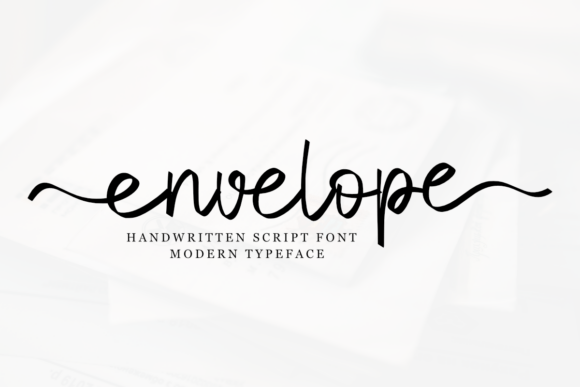
Introducing Envelope Font: The Epitome of Elegance and Sophistication
The world of typography is vast and diverse, with numerous fonts designed to cater to various tastes and preferences. Among these, the Envelope font stands out for its unique blend of elegance, sophistication, and personal touch. This beautifully flowing and elegant handwritten script font is perfect for adding a touch of modern sophistication to a wide range of creative projects.
The Characteristics of Envelope Font
Envelope is a modern typeface that boasts graceful, cursive letterforms featuring smooth connections and stylish swashes. These characteristics create a distinctly natural and refined aesthetic, making it an ideal choice for projects that require a personal and elegant touch. The font’s flowing style is reminiscent of handwritten scripts, yet it maintains a level of sophistication that is hard to achieve with traditional typography.
The Versatility of Envelope Font
One of the standout features of Envelope font is its versatility. It can be used in a wide range of creative projects, from elegant wedding invitations and sophisticated branding materials to personalized stationery and heartfelt greeting cards. The font’s natural and flowing style makes it exceptionally well-suited for products targeting end-users who appreciate a personal and elegant touch.
Perfect for Creative Projects
Envelope font is perfect for adding a touch of handwritten charm to various creative projects, including:
- Elegant wedding invitations and save-the-date cards
- Sophisticated branding materials, such as logos and business cards
- Personalized stationery, including letterheads and journals
- Heartfelt greeting cards and invitations
- Stylish social media graphics and quotes
- Eye-catching logos and wordmarks
Ideal for Cricut, Sublimation, and Stickers
The natural and flowing style of Envelope font makes it exceptionally well-suited for products created using Cricut, sublimation, and stickers. Crafters and designers can use this font to add a personal touch to:
- Personalized gifts, such as customized mugs and apparel
- Sublimation products, including stylish merchandise like mugs and apparel
- Beautiful stickers and planner elements
Why Choose Envelope Font?
There are several reasons why Envelope font stands out from the rest:
- Unique and elegant design: Envelope font boasts a unique and elegant design that is sure to make your projects stand out.
- Versatility: This font can be used in a wide range of creative projects, from elegant wedding invitations to stylish social media graphics.
- Personal touch: Envelope font adds a personal touch to your projects, making them more relatable and engaging.
- Modern sophistication: This font exudes modern sophistication, making it perfect for projects that require a touch of elegance.
Tips for Using Envelope Font
To get the most out of Envelope font, here are some tips to keep in mind:
- Use it sparingly: Use Envelope font sparingly to add a touch of elegance to your projects. Overusing the font can make your projects look cluttered and overwhelming.
- Pair it with other fonts: Pair Envelope font with other fonts to create a unique and visually appealing combination.
- Experiment with colors: Experiment with different colors to find the perfect combination that complements your project.
Envelope font is a beautifully flowing and elegant handwritten script font that exudes a sense of personal touch and modern sophistication. Its versatility, unique design, and flowing style make it an ideal choice for a wide range of creative projects. Whether you’re a designer, craft, or DIY enthusiast, Envelope font is sure to add a touch of elegance and sophistication to your projects.